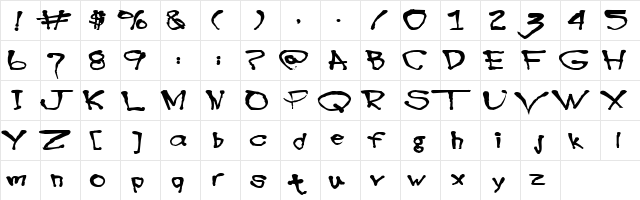
Blottooo40oz Regular
| Version | 1.0 of this drunken and scrawly bold-o font |
Design Context for Blottooo40oz Typeface
Blottooo40oz is a composed and adaptable typeface that performs quietly and consistently across a wide range of design contexts.